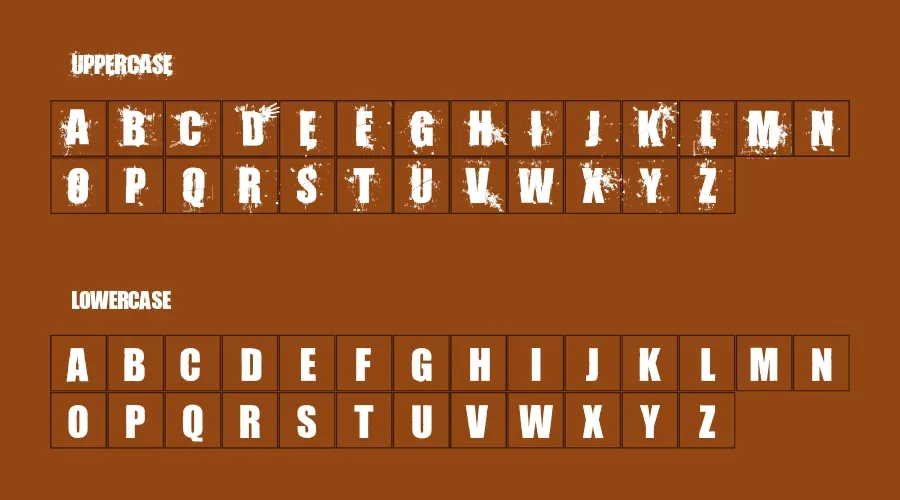
About Living Hell Font
Living Hell Font is designed by Christopher Hansen. It is a fancy text style that has thick alphabetical letters. It can be added extra fun to any design and it is ideal for creating a feeling of wonder. The text style has also a free version.
This typeface is a great option if you want a typeface that will grab attention. The typeface blends well with other typefaces and can operate sensibly when combined with storybook font.